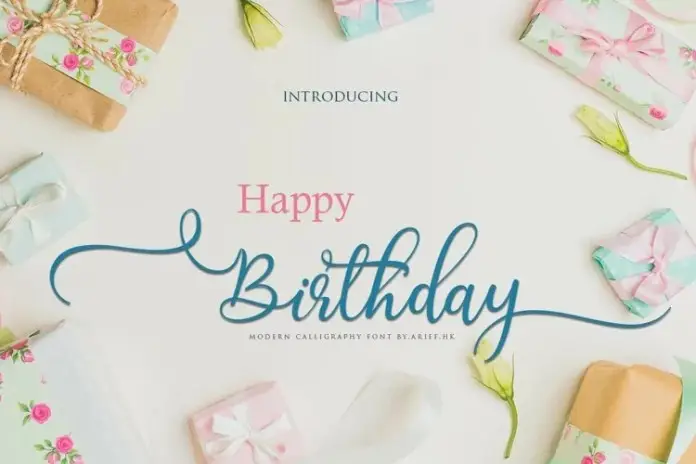
Birthday Calligraphy Font
Introducing the Birthday Calligraphy Font, a beautifully crafted typeface designed to bring elegance and charm to your birthday celebrations. This font features a flowing script style with a variety of weights, making it perfect for invitations, greeting cards, and personalized gifts.
• Elegant calligraphy style
• Style: Script
Ideal for creating stunning birthday invitations, party decorations, and custom merchandise. Pair it with complementary sans-serif fonts for a balanced look.